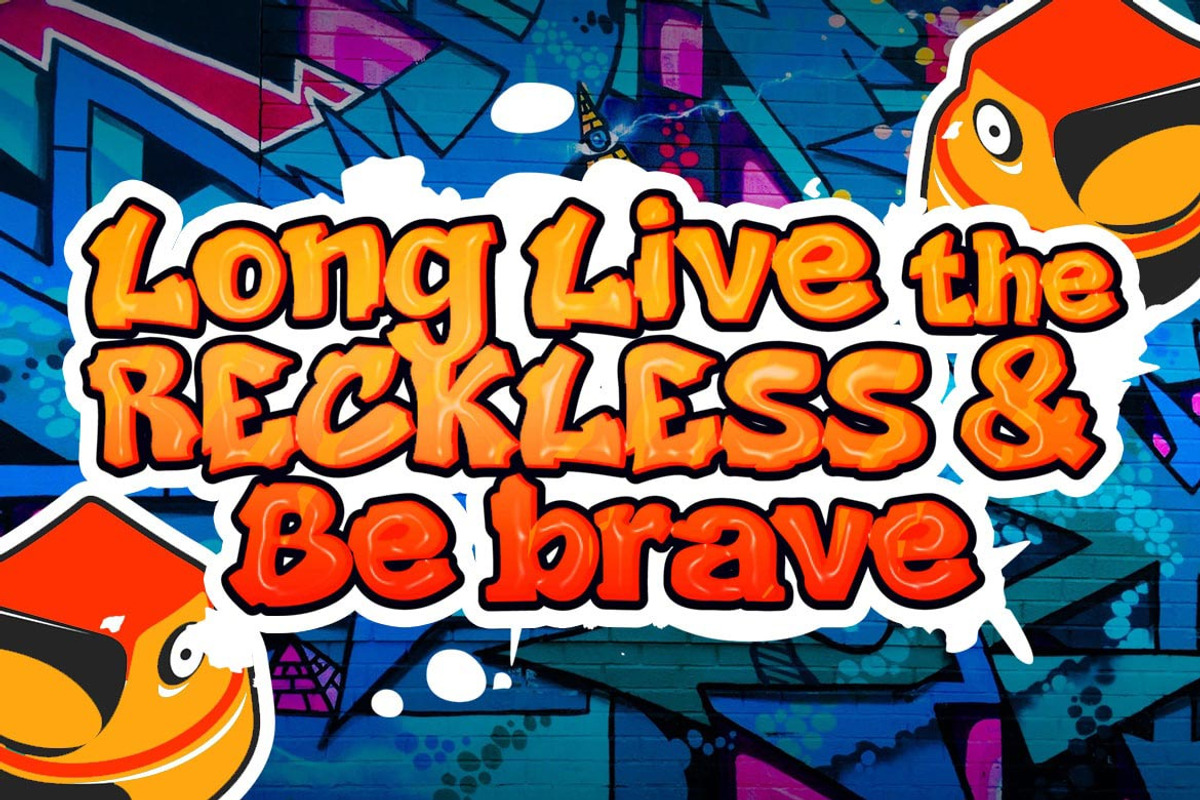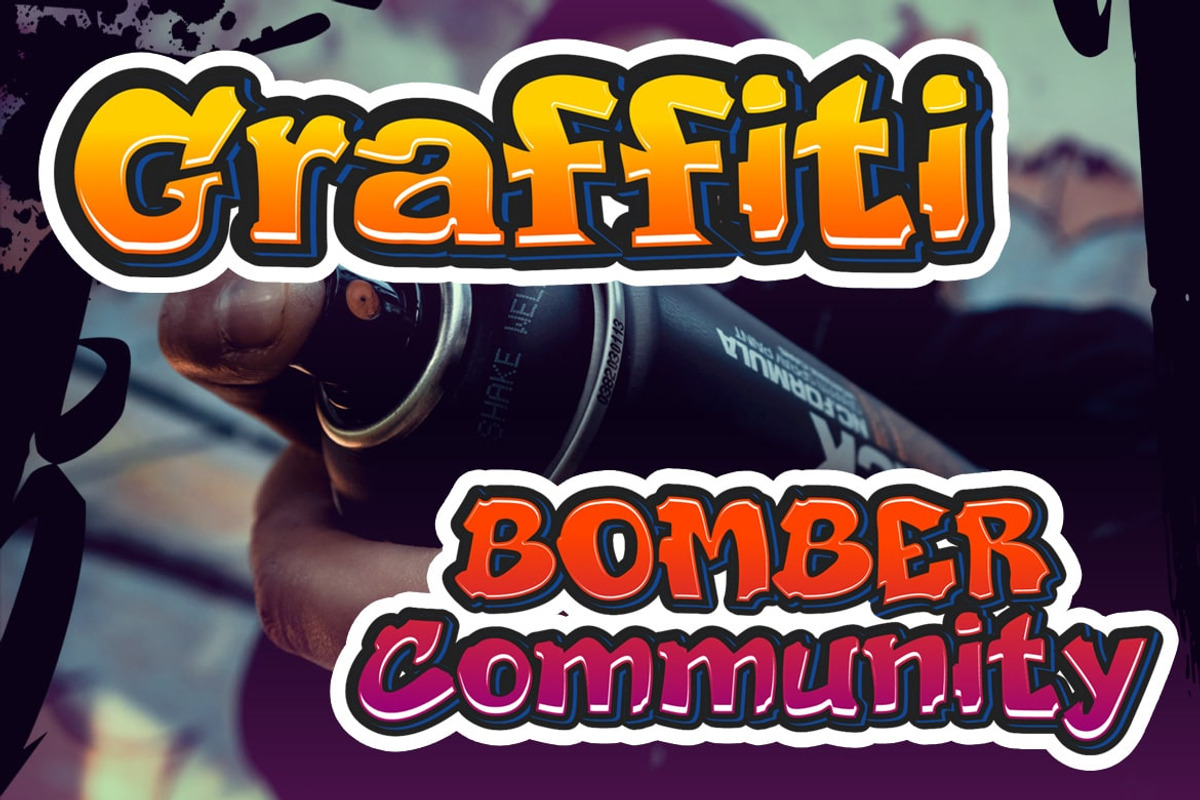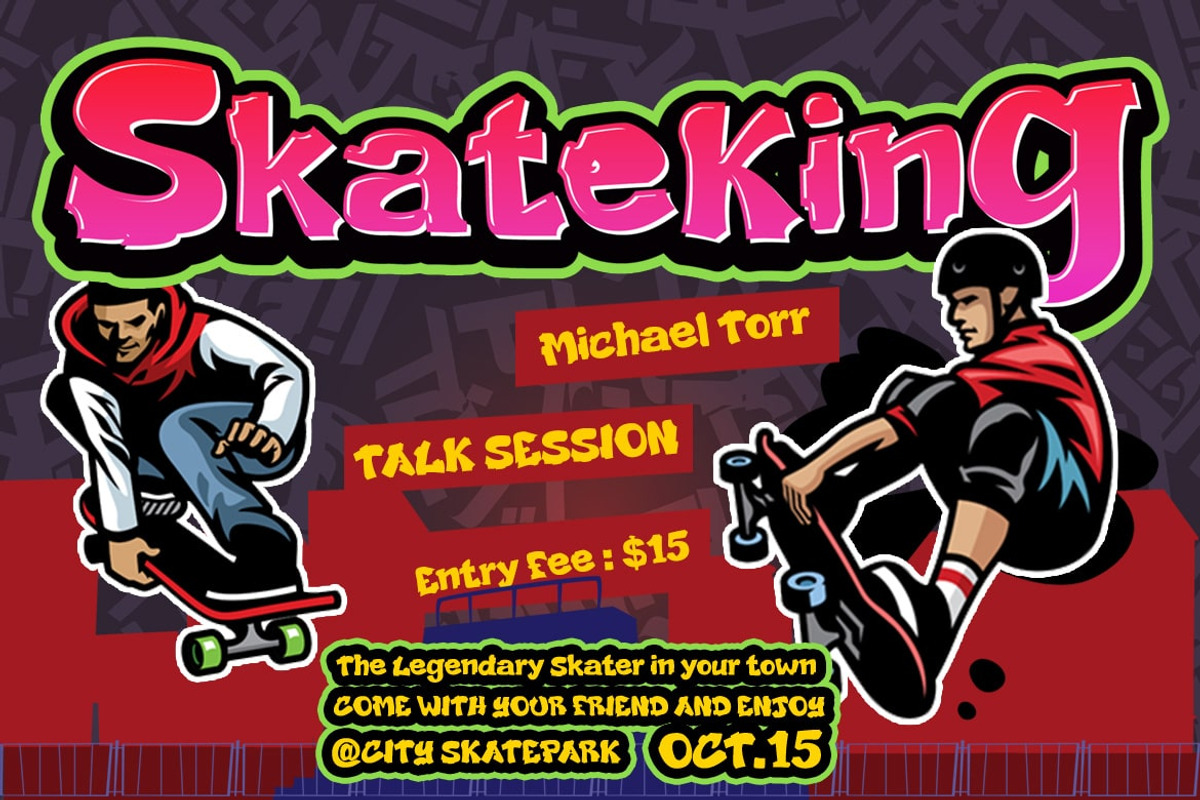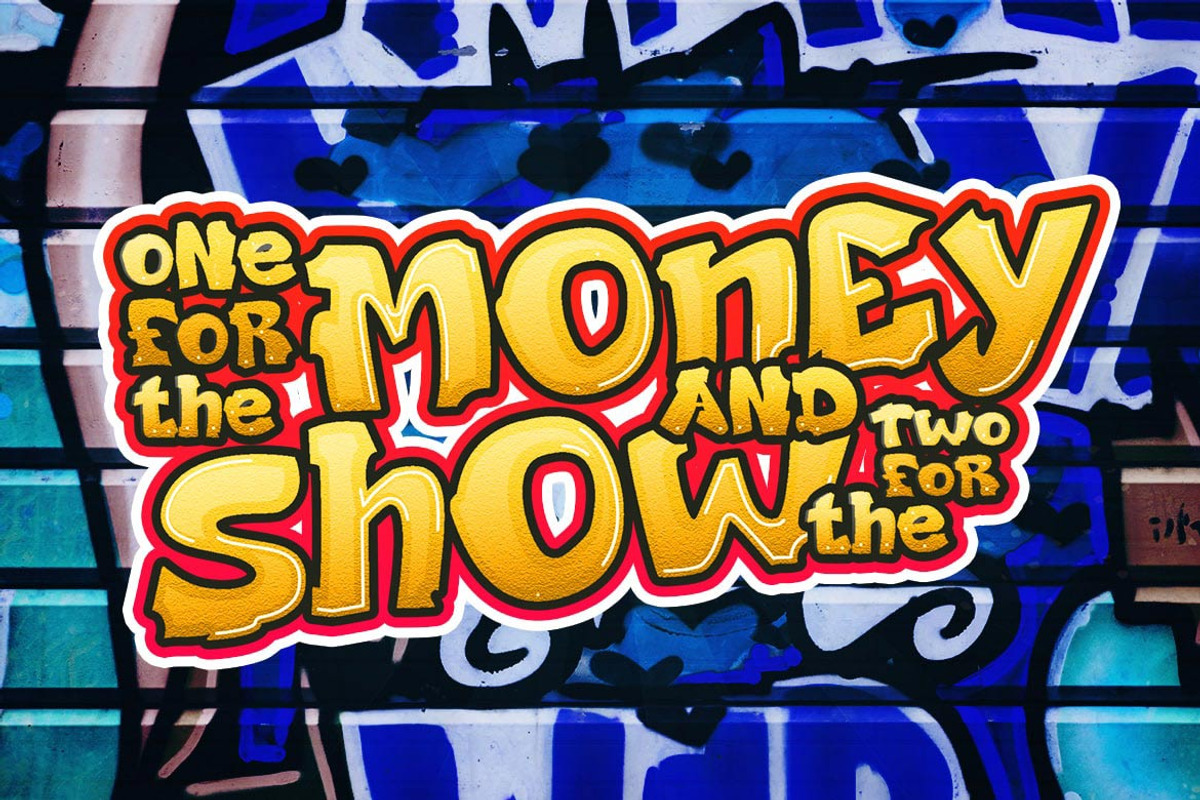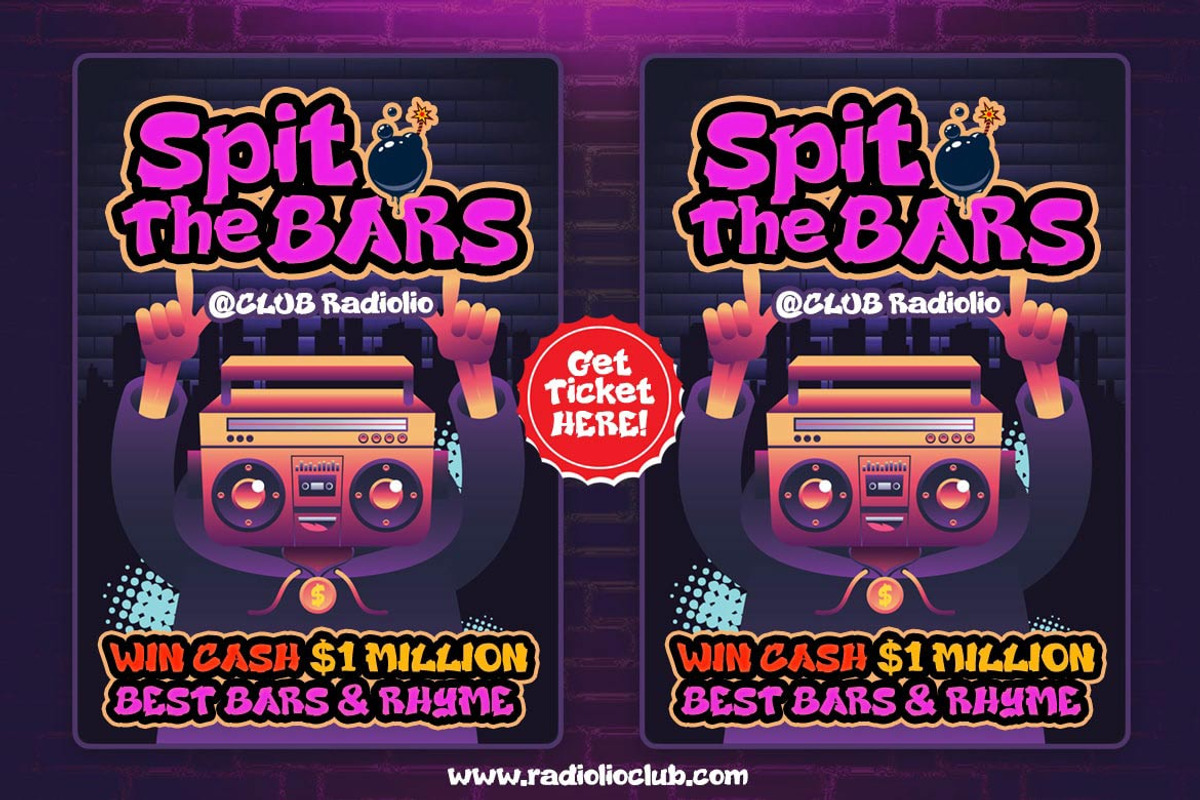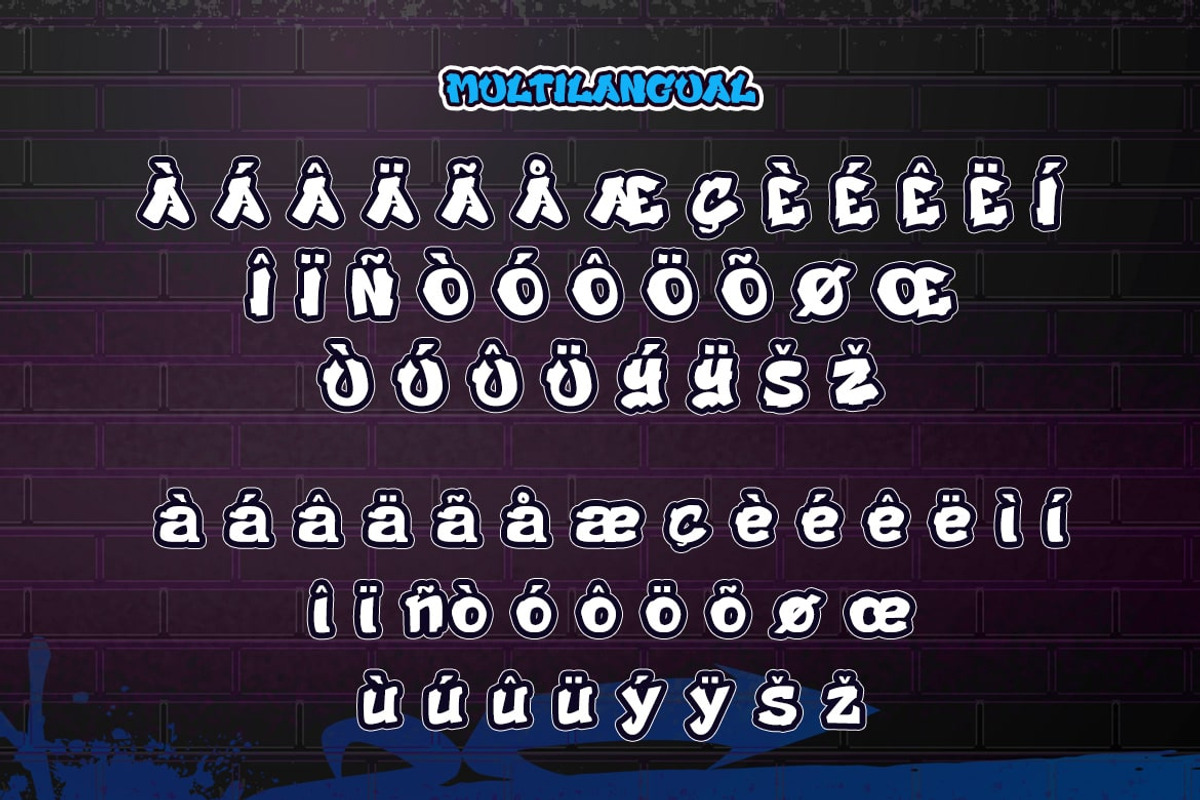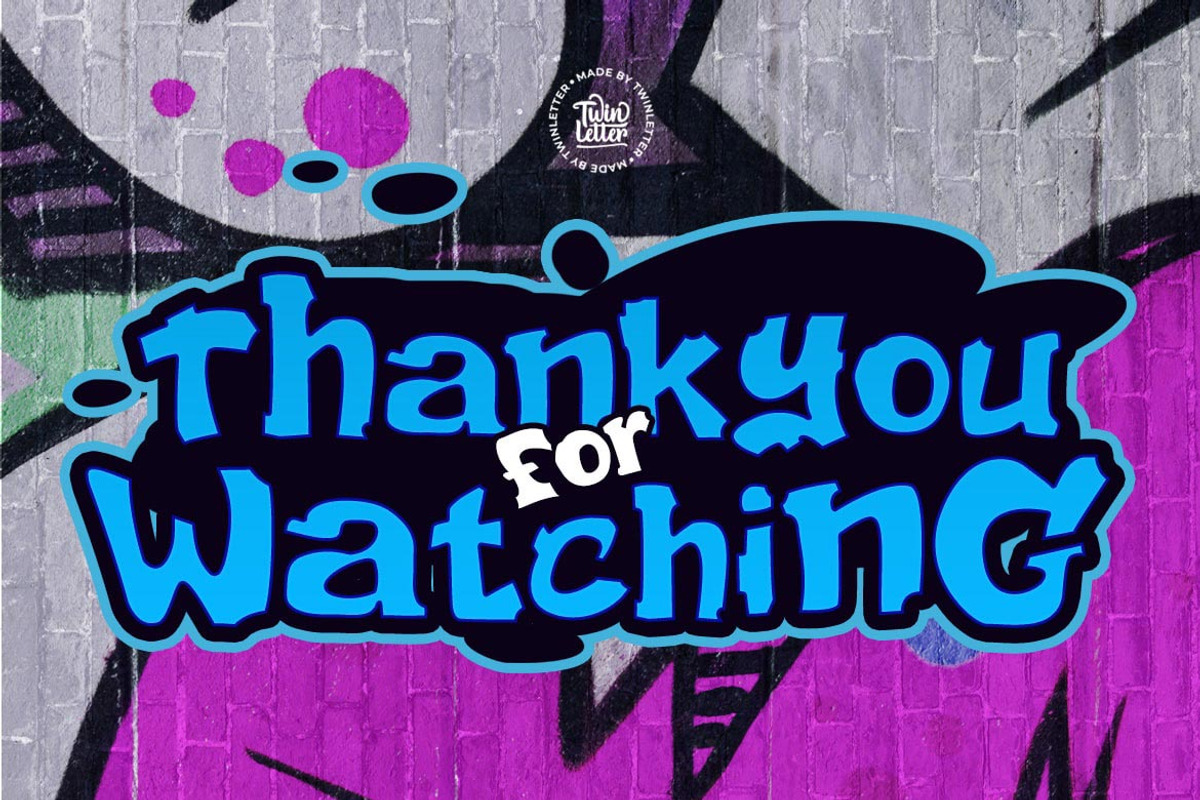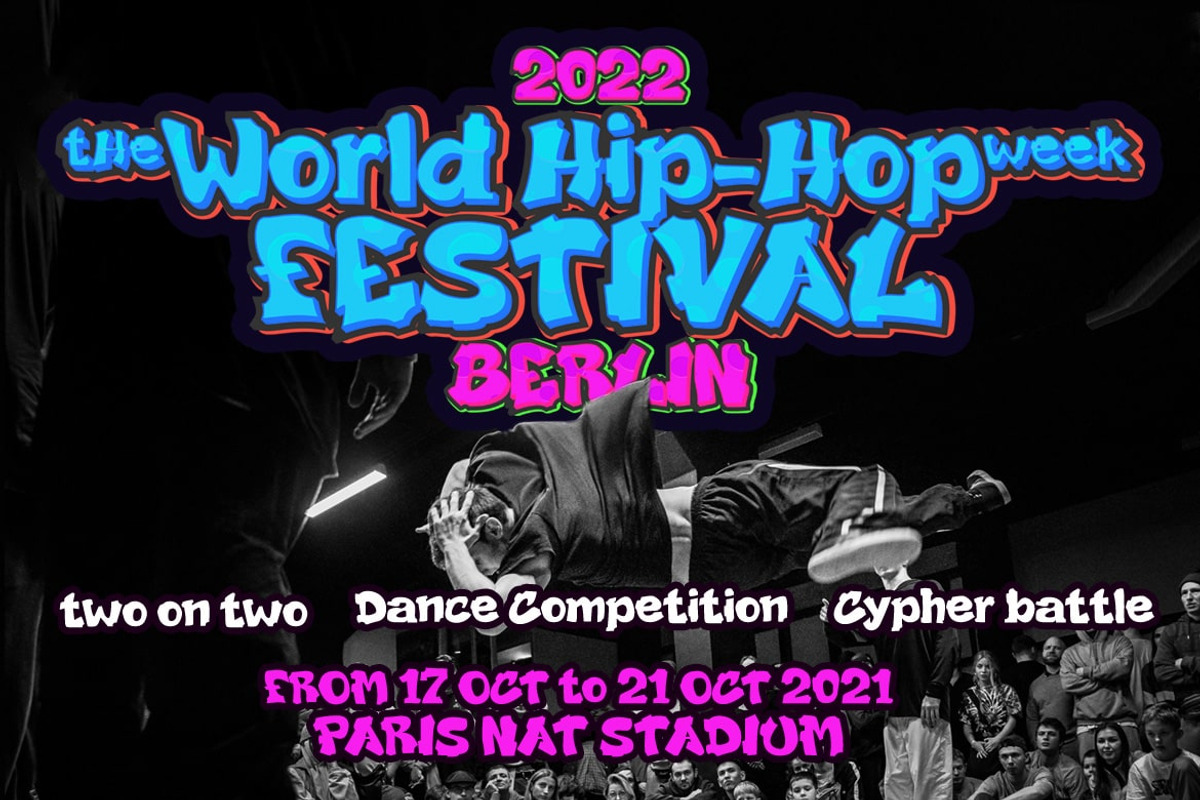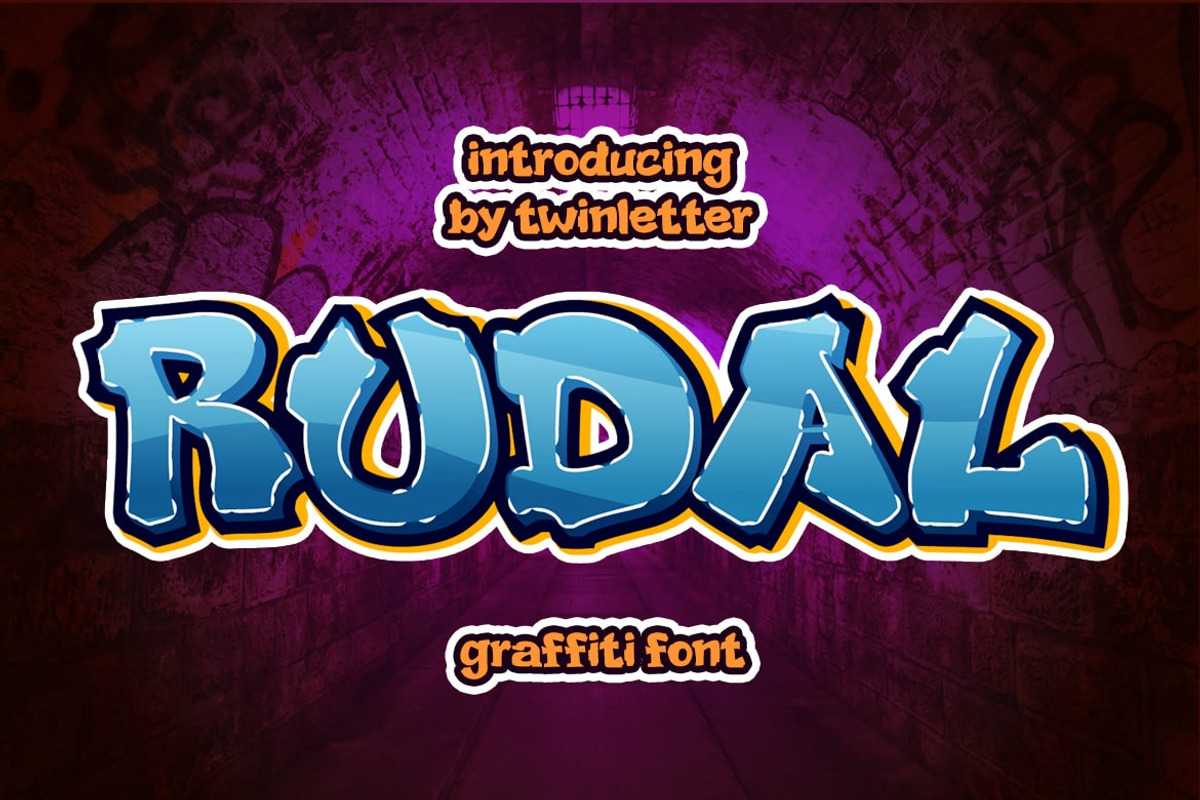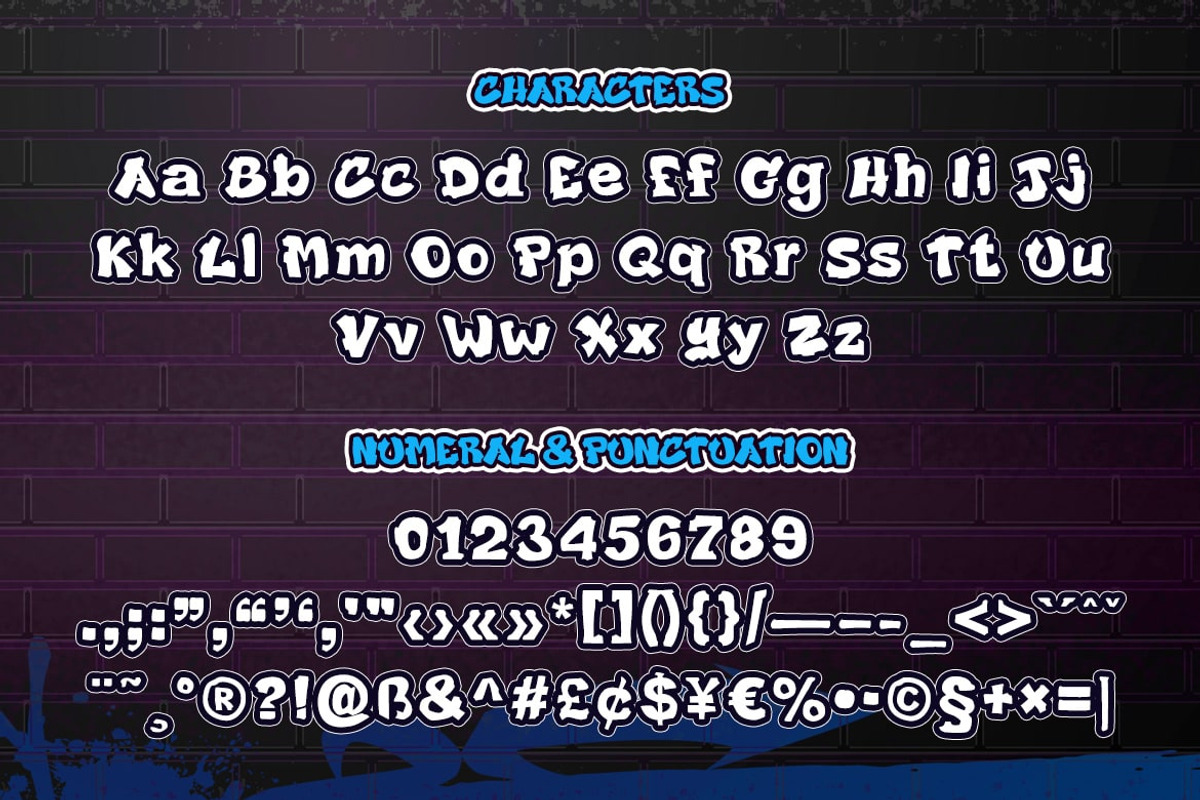
Rudal
Rudal is a unique graffiti font that we present to those of you who enjoy the unusual shape of graffiti. By utilizing this typeface, all of your projects will be beautiful and natural, awe-inspiring to everyone who sees them.
This graffiti font is great for product logos, poster titles, headlines, packaging, film titles, logotypes, gorgeous writing, and trendy graffiti designs, among other things.